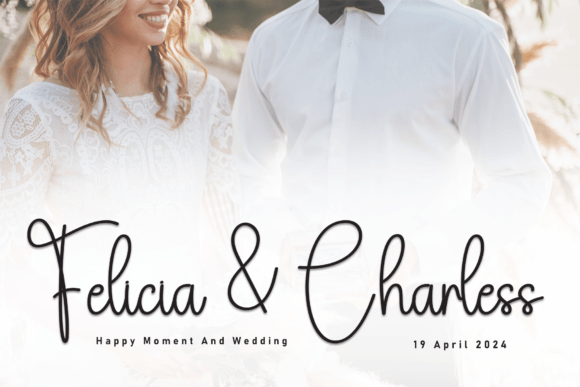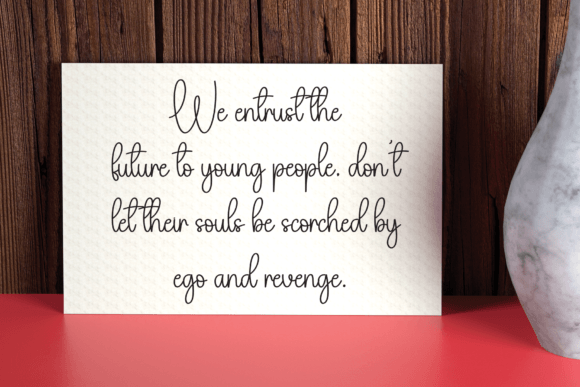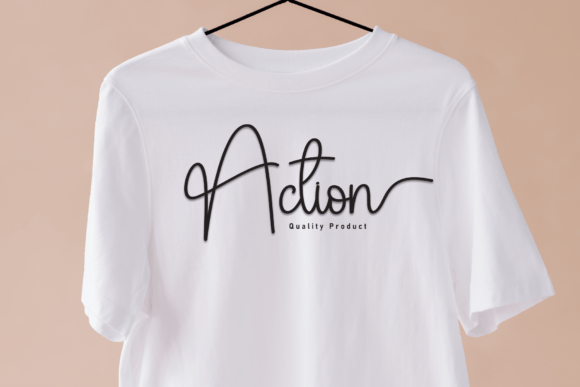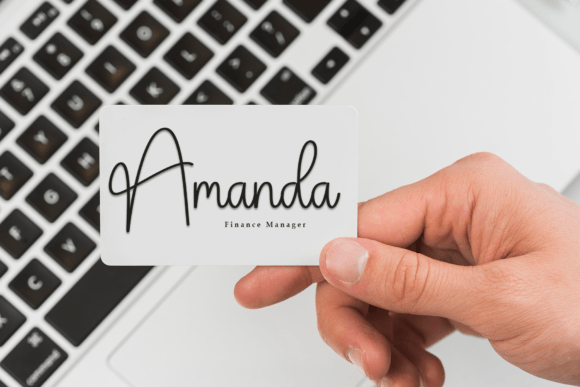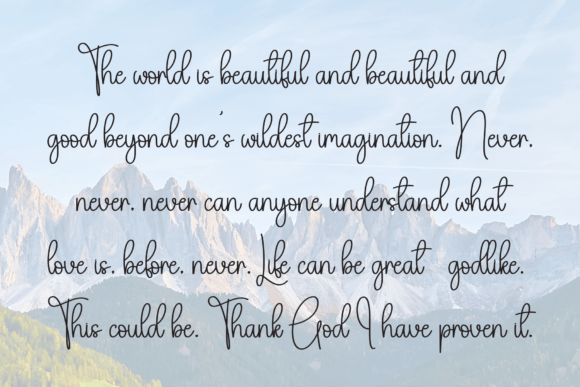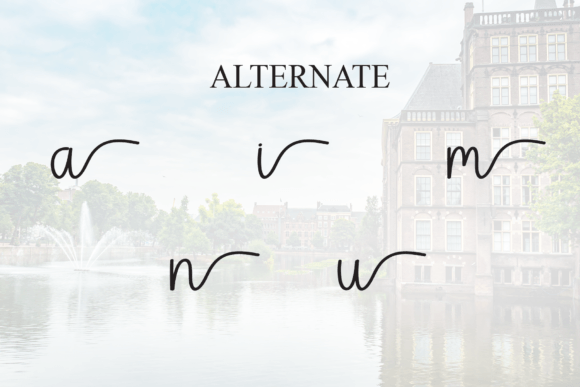
Hello Amsterdam Font: Elevate Your Designs with Elegance and Style
In the world of typography, fonts play a crucial role in conveying the tone and aesthetic of a design. For those seeking a touch of elegance and sophistication, the Hello Amsterdam Font is an exceptional choice. This stylish and incredibly elegant script font has captured the hearts of designers and crafters alike, and for good reason. In this article, we’ll delve into the beauty of Hello Amsterdam Font, exploring its features, uses, and benefits, as well as provide tips on how to make the most of this stunning typeface.
The Beauty of Hello Amsterdam Font
Hello Amsterdam Font is a masterpiece of script typography, boasting fluid strokes, delicate connections, and a refined aesthetic that exudes luxury and sophistication. Its elegant appearance makes it an ideal choice for a variety of design projects, from wedding invitations and thank you cards to quotes, greeting cards, logos, and business cards. This font’s versatility knows no bounds, allowing designers to experiment with various applications and creative expressions.
Key Features of Hello Amsterdam Font
- Elegant Script Style: Hello Amsterdam Font features a beautiful, flowing script style that adds a touch of sophistication to any design.
- Highly Readable: Despite its elegant appearance, this font remains highly readable, making it suitable for both headings and body text.
- Extensive Character Set: The font includes an extensive character set, covering various languages and special characters, ensuring that designers have everything they need to create stunning designs.
Uses of Hello Amsterdam Font
Hello Amsterdam Font’s versatility makes it an excellent choice for a wide range of design projects. Here are some popular uses:
- Wedding Invitations: Add a touch of romance and elegance to wedding invitations, save-the-date cards, and other wedding-related designs.
- Stationery and Cards: Create beautiful thank you cards, greeting cards, and letterheads that exude sophistication and style.
- Logos and Branding: Use Hello Amsterdam Font to create stunning logos, business cards, and brand identities that convey luxury and refinement.
- Quotes and Typography: Showcase inspirational quotes, poems, or lyrics with a touch of elegance and flair.
- Experiment with Ligatures: Use the font’s built-in ligatures to add a touch of sophistication and refinement to your designs.
Hello Amsterdam Font is a stunning script font that offers designers and crafters a world of creative possibilities. Its elegant appearance, versatility, and extensive character set make it an excellent choice for a wide range of design projects. By following the tips outlined in this article, you’ll be able to unlock the full potential of Hello Amsterdam Font and elevate your designs to new heights of style and sophistication.